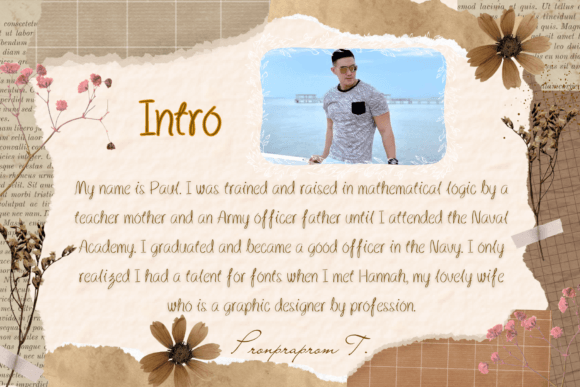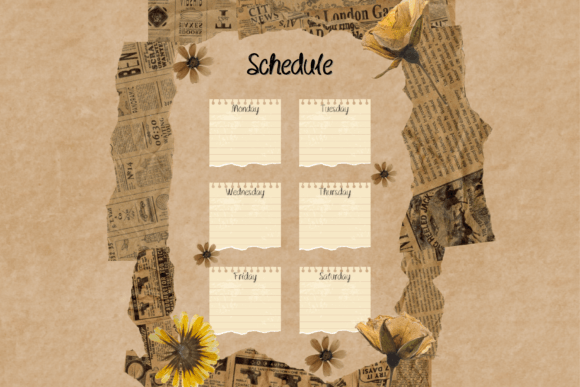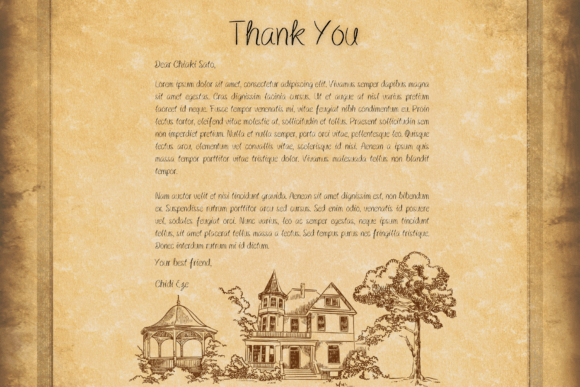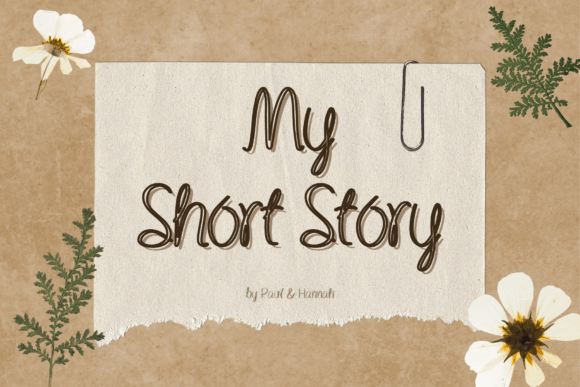
Introduction to My Short Story Font
My Short Story This font is inspired by writing notes or diaries.
It is a cute font in the form of handwriting, which is the creator’s own handwriting With the aim of making it easy to use and usable in many forms, it is one of the handwriting font options for you to choose from.